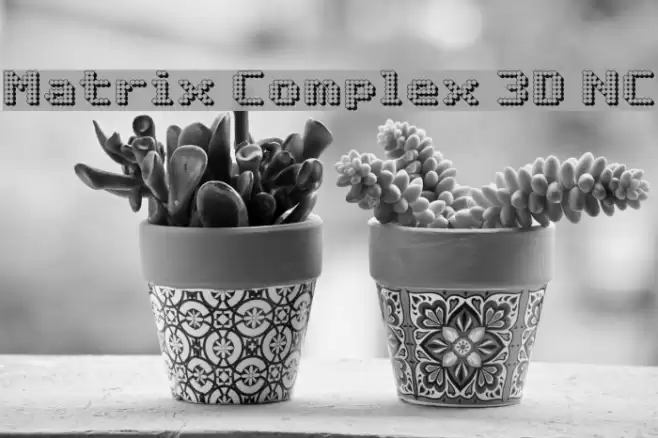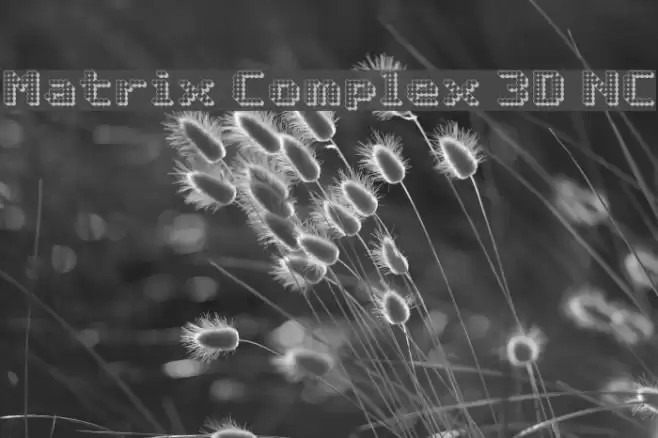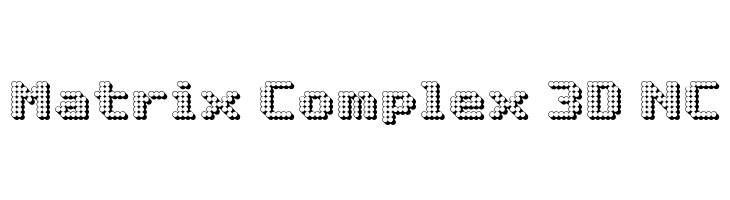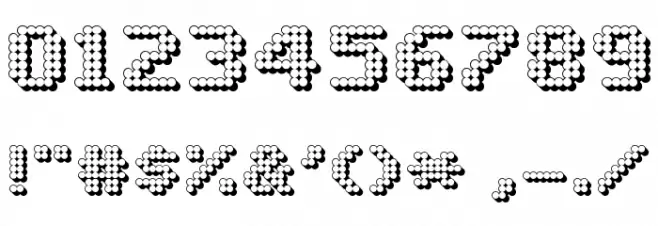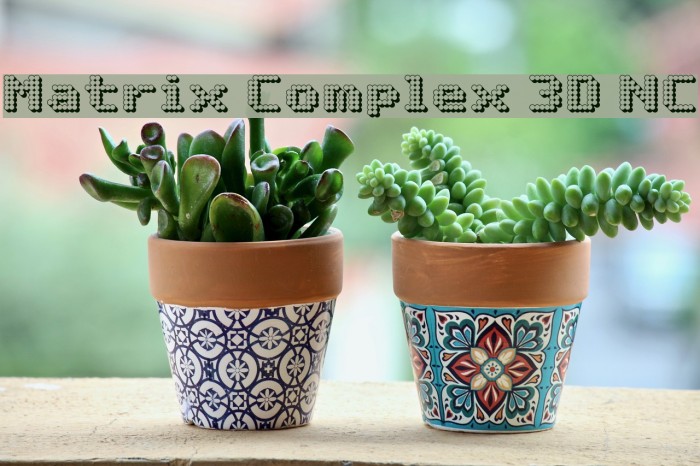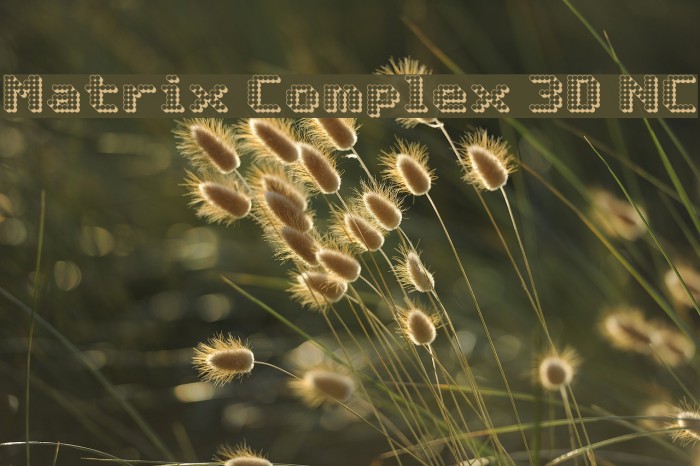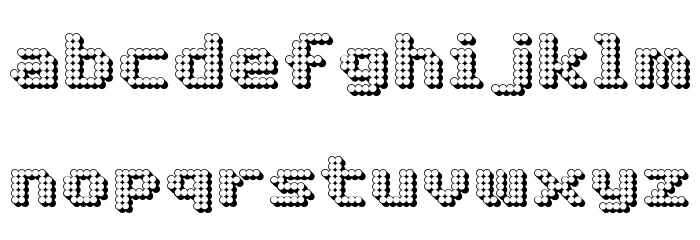
Matrix Complex 3D NC Font
Matrix Complex 3D NC Description
This font features a unique 3D effect created by a matrix of small, circular dots forming each character. The design gives an illusion of depth and complexity, making it stand out with its intricate pattern. The letters are constructed in a blocky, geometric style, which adds to the futuristic and digital aesthetic. The consistent use of dots across all characters provides a cohesive look, while the 3D effect adds a playful yet sophisticated touch. This font is visually striking and ideal for projects that require a modern and tech-savvy appearance.
A 3D dot matrix font with a futuristic and digital aesthetic from Futuristic fonts.
- Proposed Projects: Ideal for digital art, tech-themed posters, video game graphics, and modern branding projects.